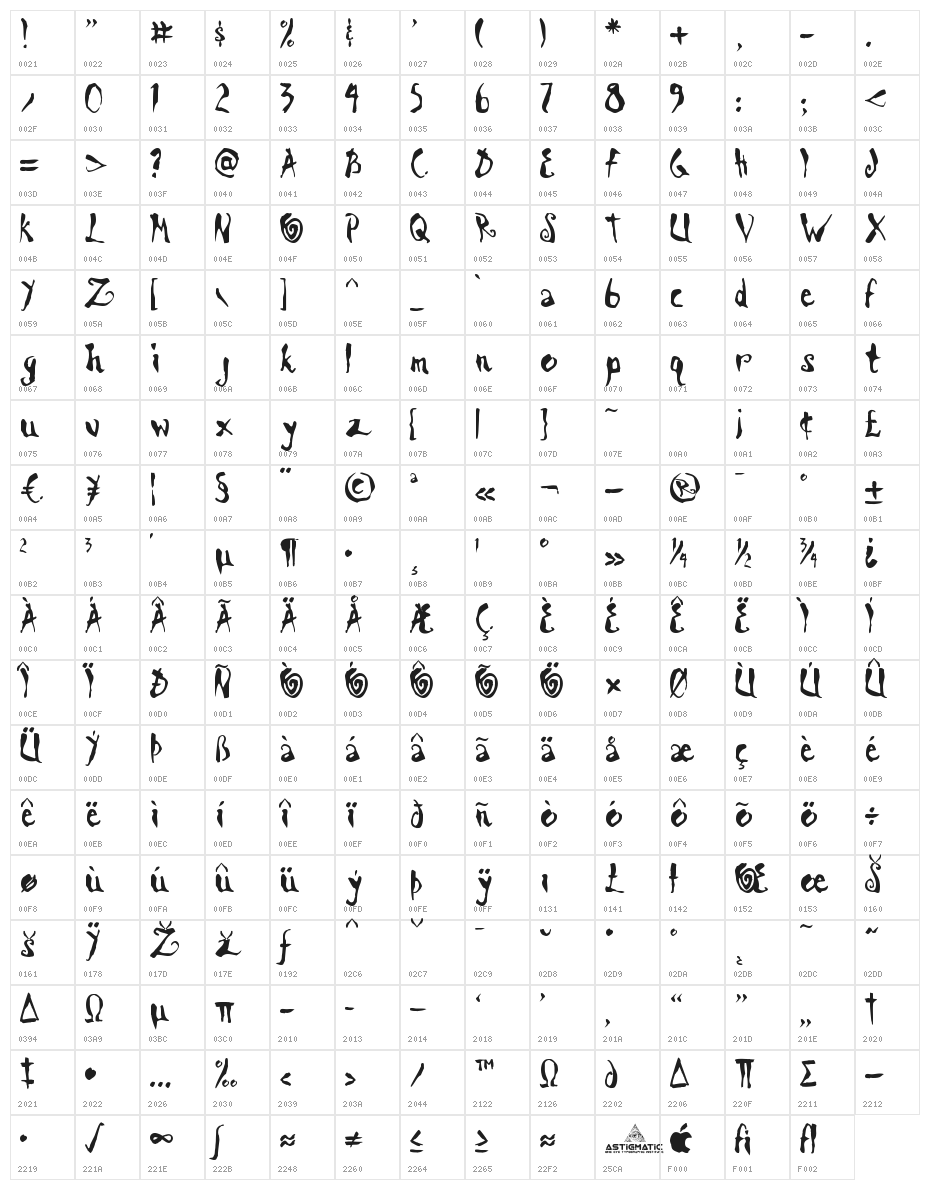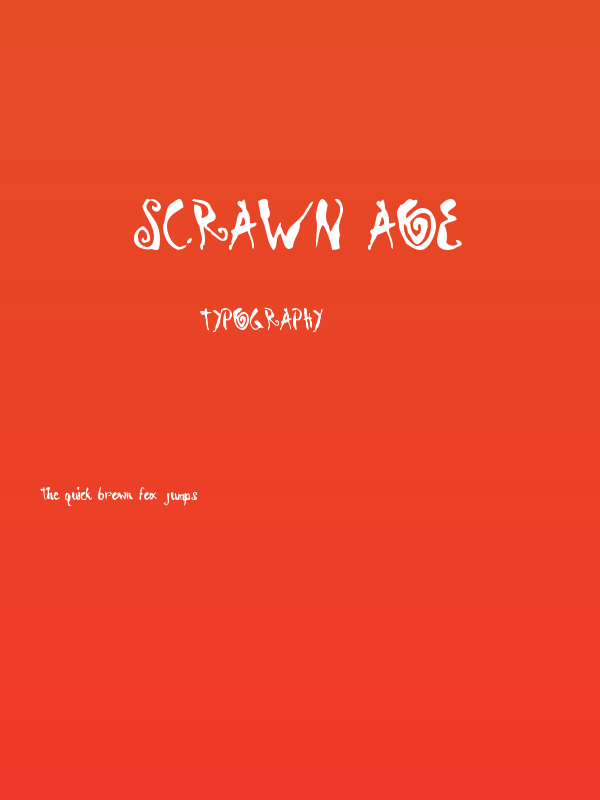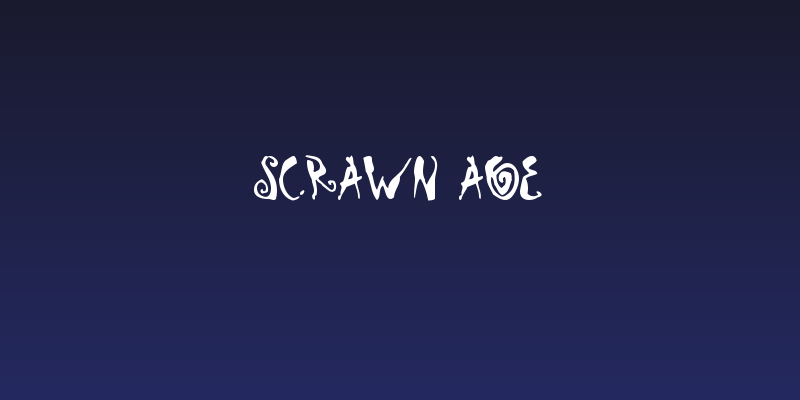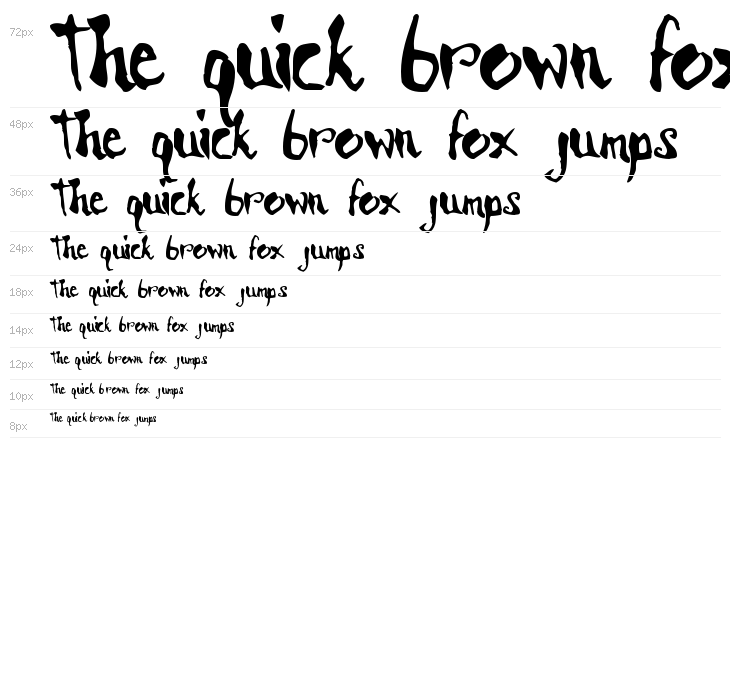
Scrawn AOE Font
Scrawn AOE Description
This font exhibits a playful and whimsical style, characterized by its irregular, hand-drawn appearance. The letters have a quirky, almost cartoonish quality, with varying stroke thicknesses and unique, artistic flourishes. The uppercase letters are bold and dynamic, while the lowercase letters maintain a consistent, yet equally expressive style. Numbers and special characters follow the same creative design, making the font suitable for projects that require a fun and informal touch. The overall look is both distinctive and engaging, perfect for capturing attention in creative designs.
| Proposed Projects | Ideal for children's book covers, playful posters, creative branding, and artistic invitations. |